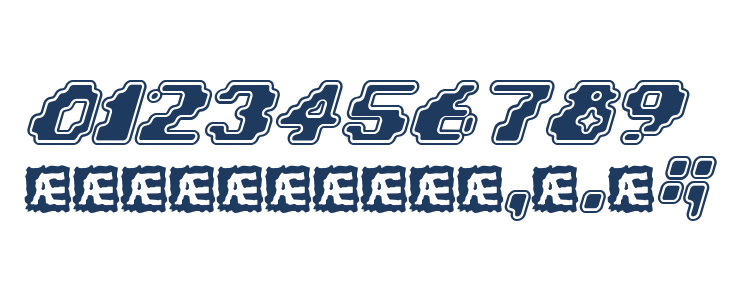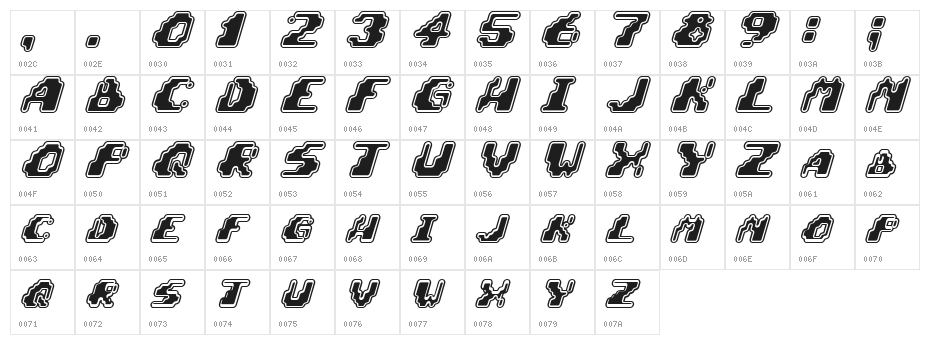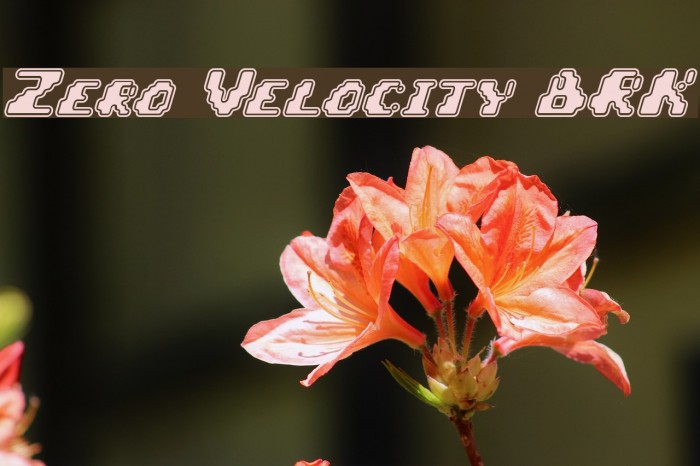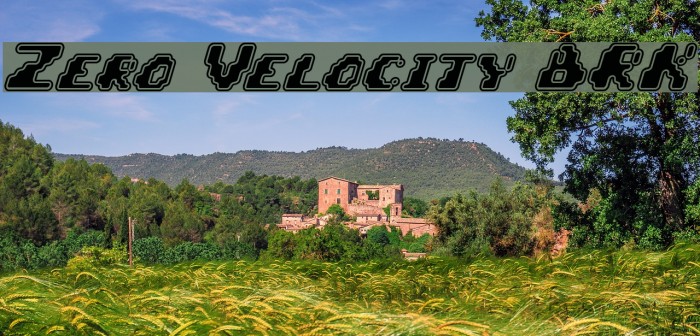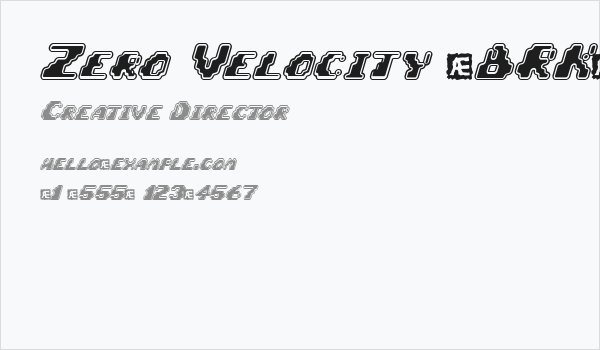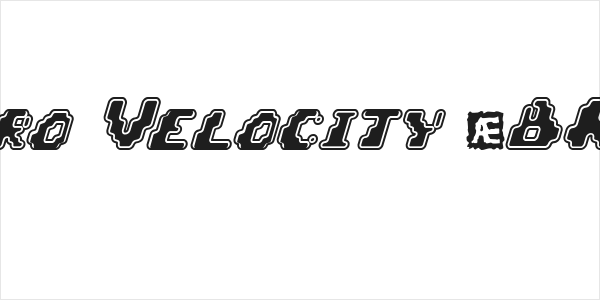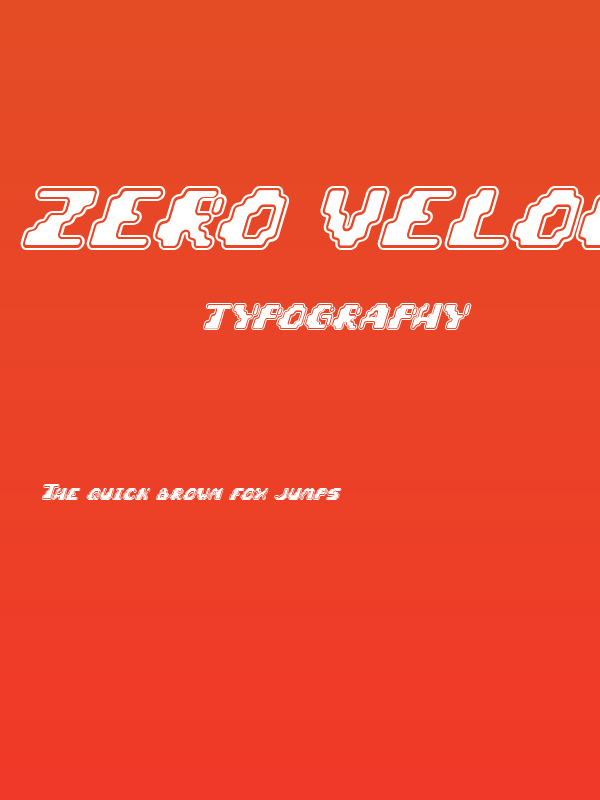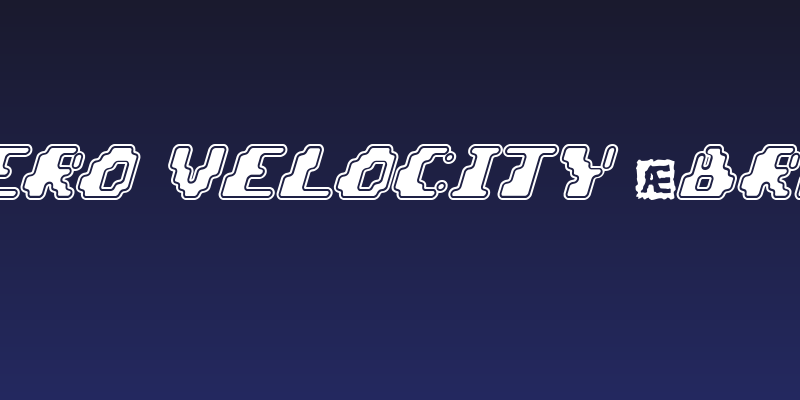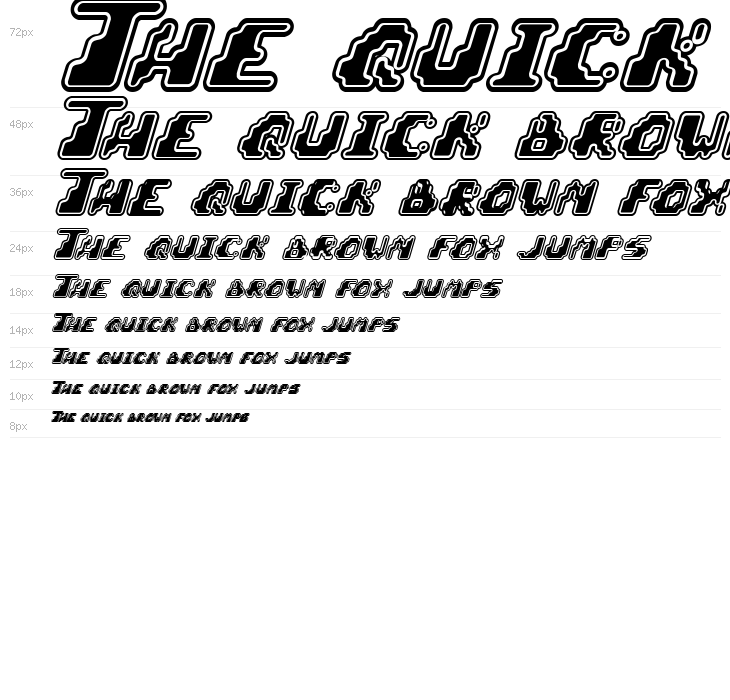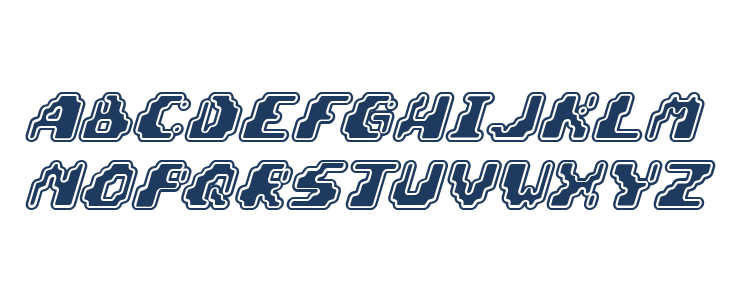
Zero Velocity [BRK] Font
Zero Velocity [BRK] Description
This font features a bold, futuristic design with a distinct outline style that gives it a three-dimensional appearance. The characters are uppercase and lowercase, with a consistent geometric structure that emphasizes sharp angles and clean lines. The numbers and special characters maintain the same aesthetic, ensuring a cohesive look across all elements. The font's unique style makes it stand out, ideal for projects that require a modern and edgy feel.
| Proposed Projects | Ideal for sci-fi themed designs, video game graphics, posters, and branding that requires a modern and edgy look. |